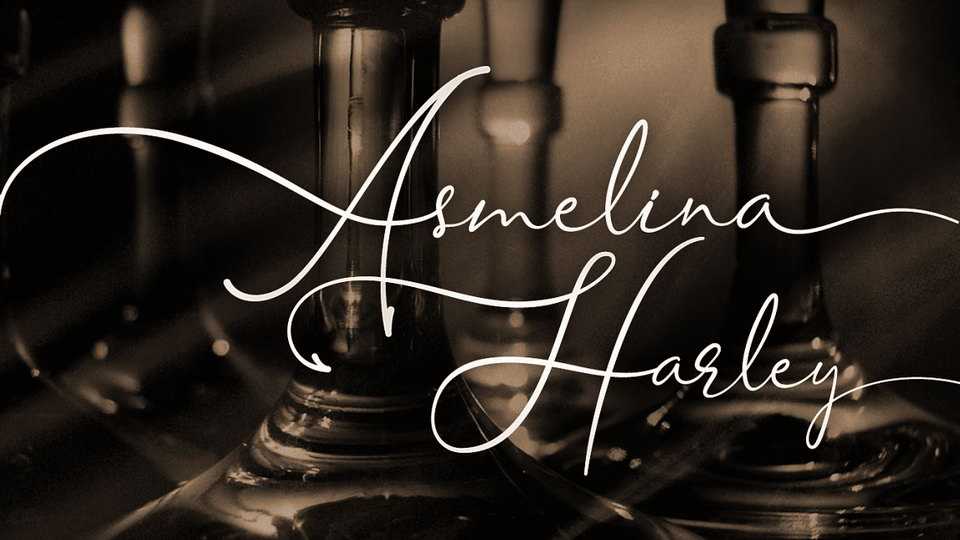
Download Asmelina Harley font, an elegant calligraphy script, perfect for making stylish statements – or adding a touch of class to your designs with a multitude of natural looking ligatures.